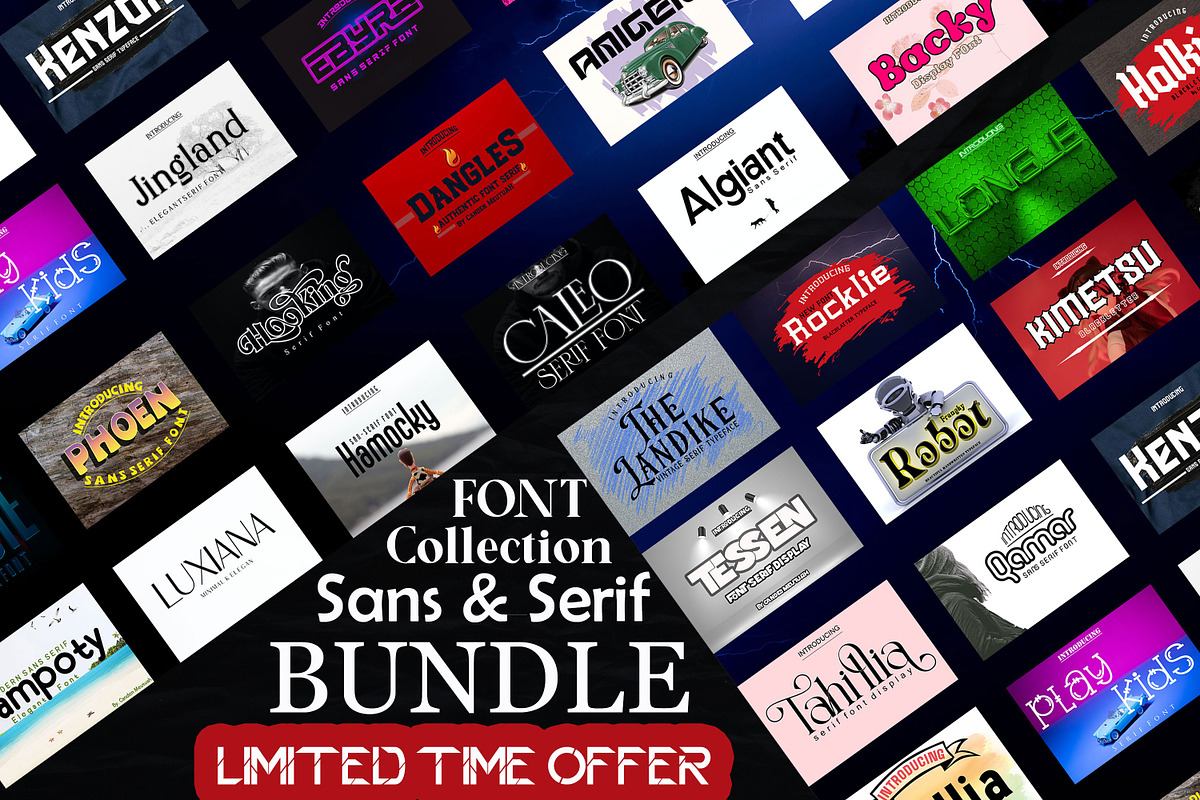
Font Collection Sans & Serif Bundles Free Download is an all-in-one premium font pack combining clean sans serifs and elegant serif typefaces—perfect for every kind of design project. With a wide range of styles and weights, this bundle is ideal for branding, web design, editorial layouts, packaging, business presentations, and more.
From sleek modern minimalism to timeless editorial elegance, each font is crafted to deliver clarity, balance, and versatility. Whether you're building a cohesive brand system or exploring creative pairings, this collection gives you the tools to do it all.